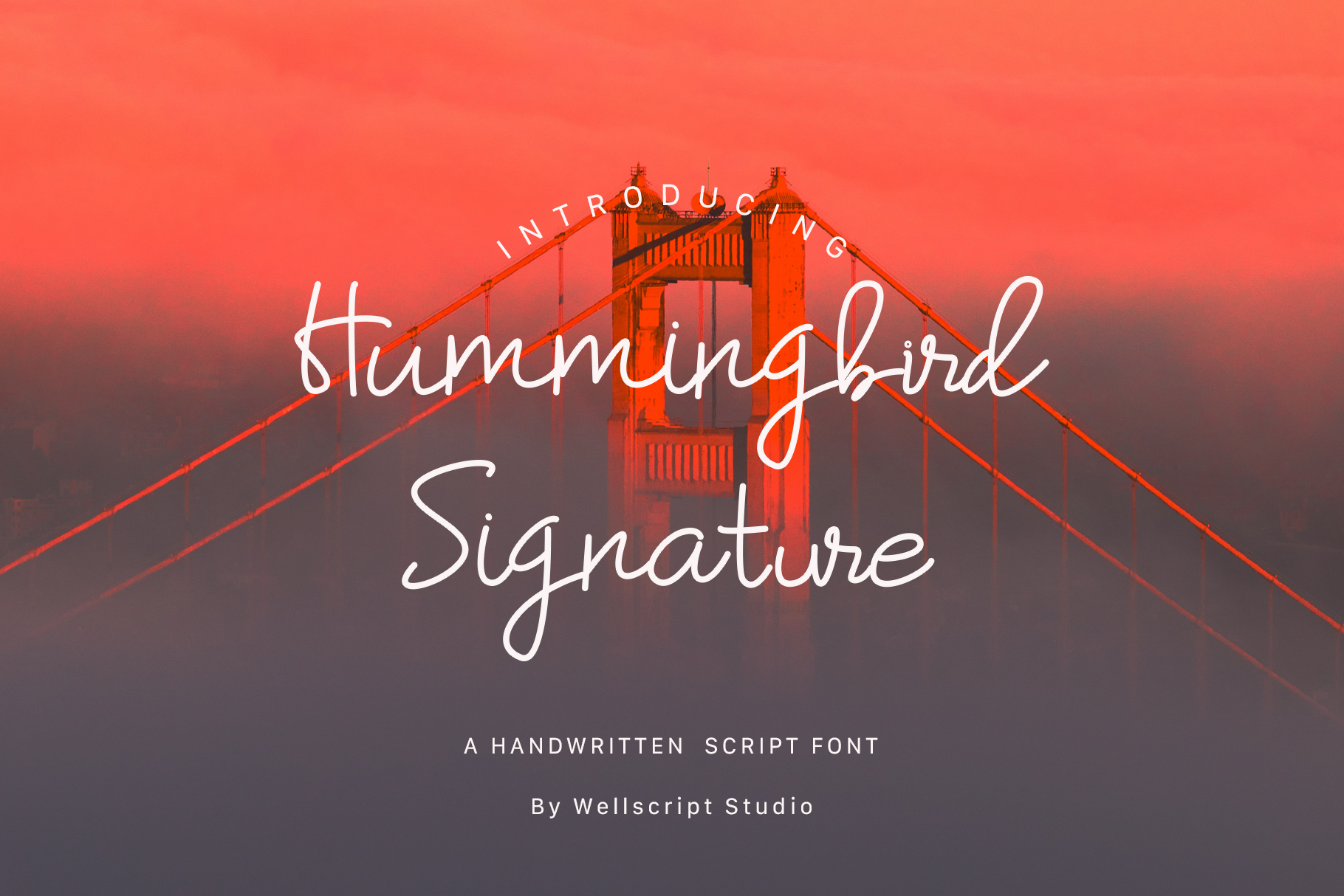
Hummingbird Font Free Download . Hummingbird is a free font for personal use created by wellscript studio. Web hummingbird script font is a new romantic calligraphy typeface.
Every font is free to download! A script typeface with 2 styles, available from adobe fonts for. Web explore hummingbird designed by laura worthington at adobe fonts.
Hummingbird Font Free Download - Web hummingbird font download is available free from fontget. Click to find the best 5 free fonts in the hummingbird style. Hummingbird is a free font for personal use created by wellscript studio. Web hummingbird script font is a new romantic calligraphy typeface. Web explore hummingbird designed by laura worthington at adobe fonts.